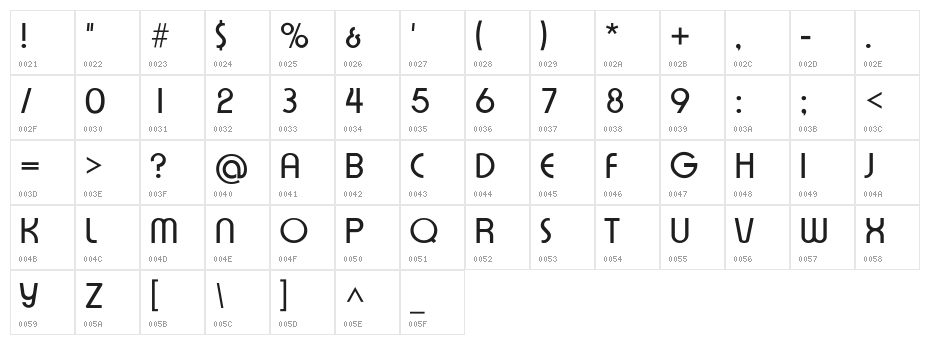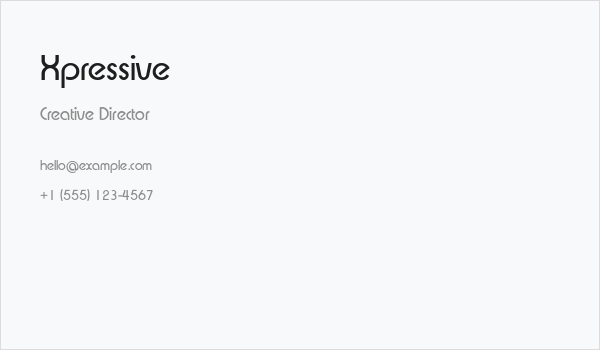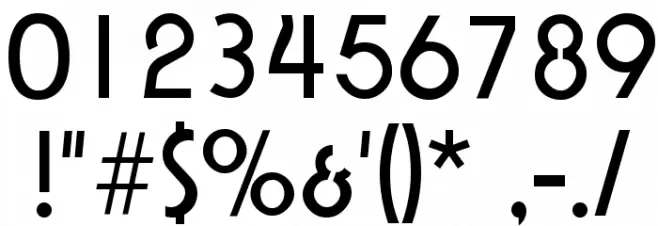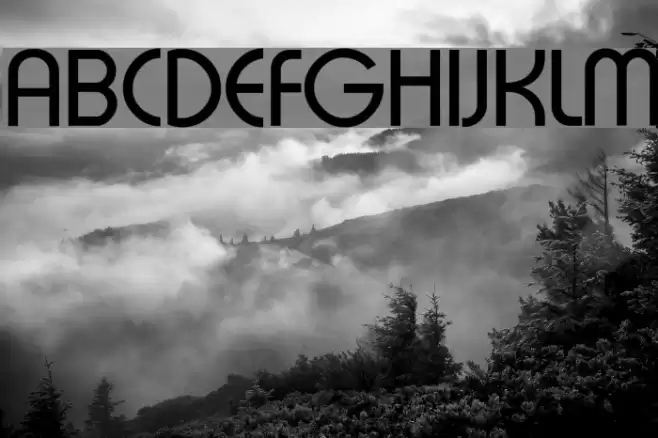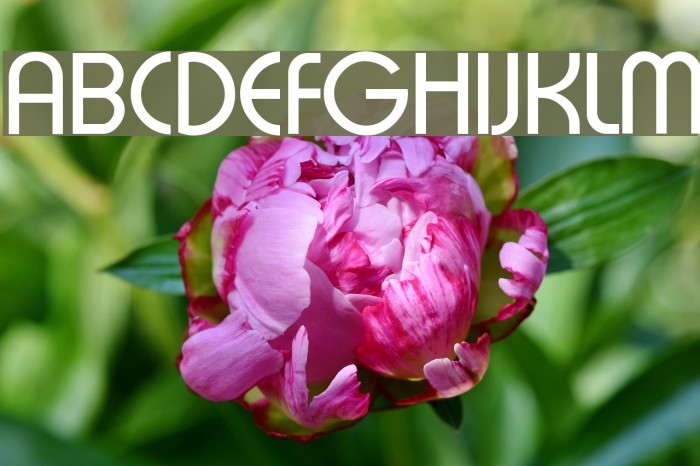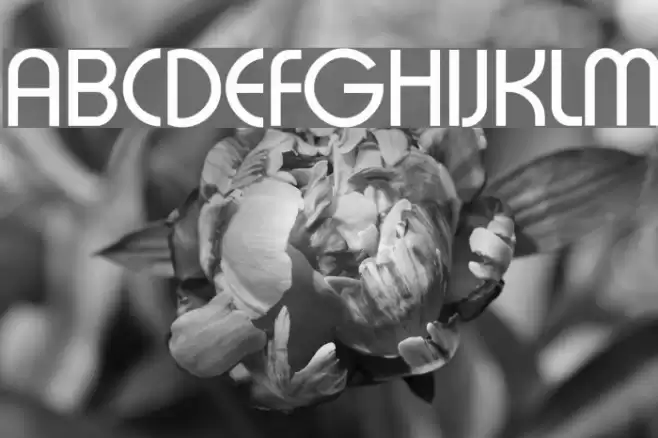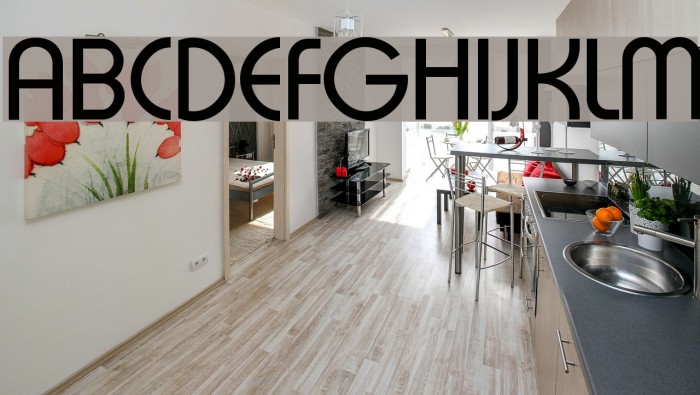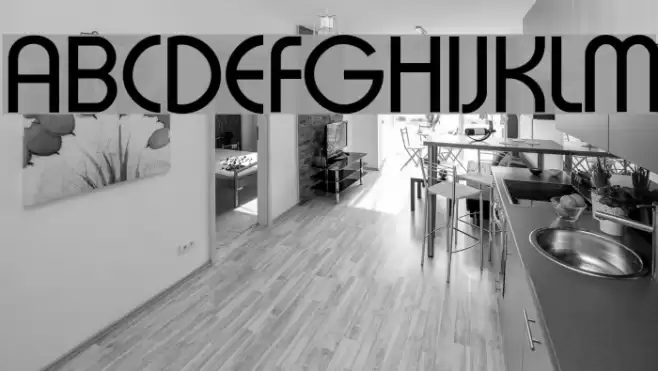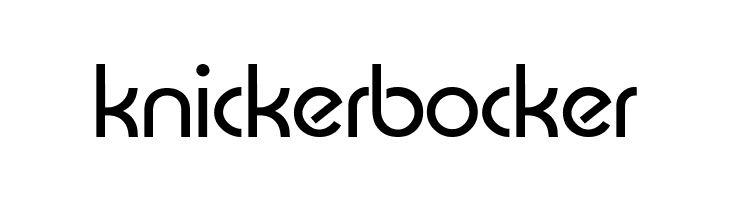
Xpressive Font
Xpressive Description
This font features a modern and sleek design with clean, geometric lines. The characters are well-balanced, with a consistent stroke width that gives it a uniform appearance. The uppercase letters are bold and striking, while the lowercase letters maintain a smooth and rounded aesthetic. The numerals are clear and easy to read, complementing the overall style. Special characters are thoughtfully designed to match the font's contemporary look. This font is versatile, suitable for various design projects that require a modern and professional touch.
| Use Case | Headlines, Logos, Digital Media |
| Proposed Projects | Ideal for branding, advertising, digital media, and editorial design. |